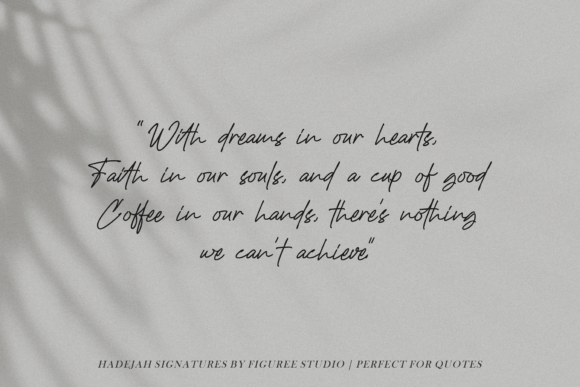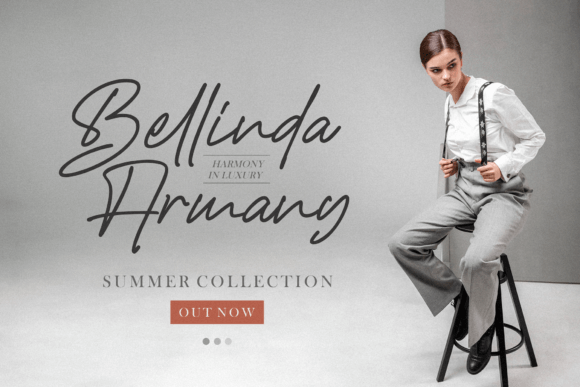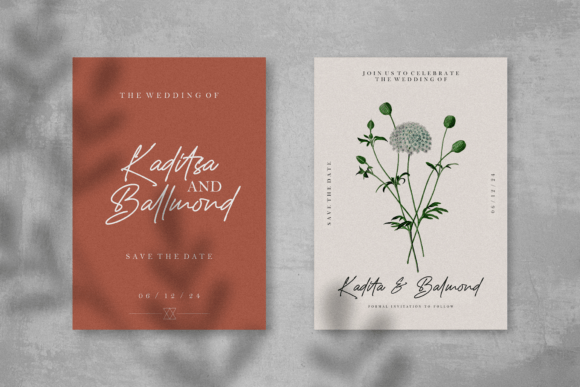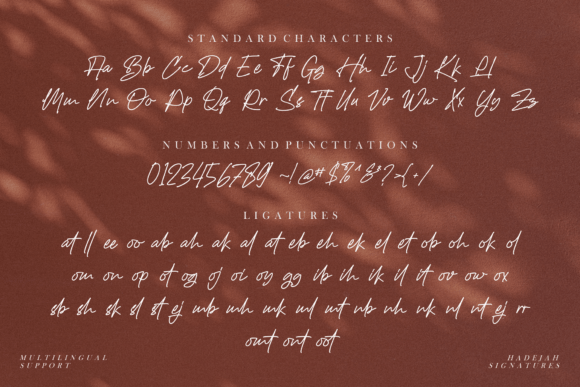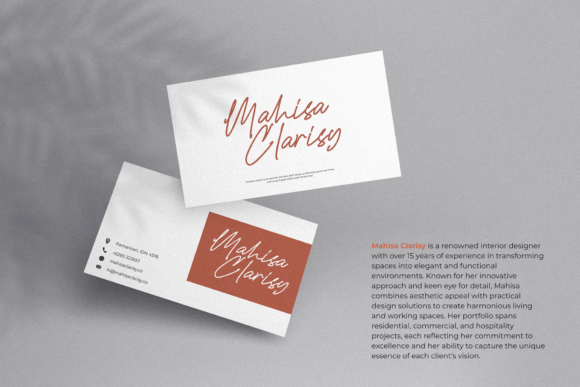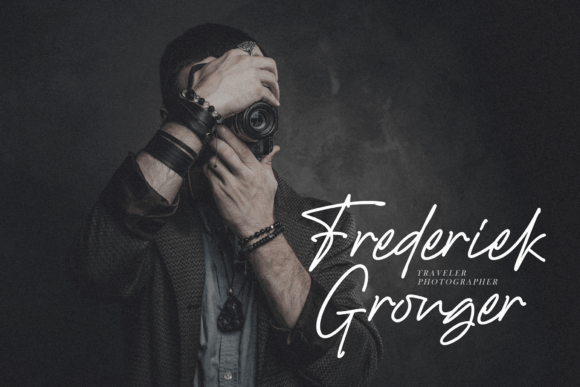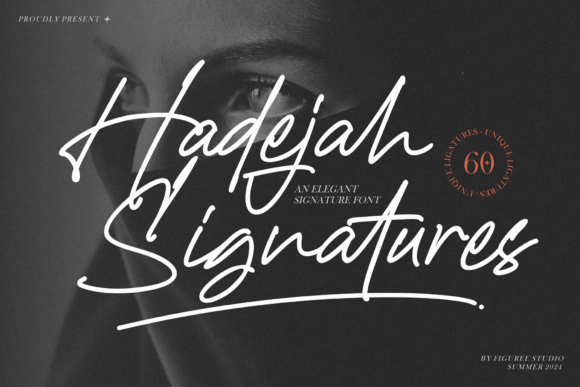
Introducing Hadejah: The Ultimate Elegant Signature Font for Your Creative Projects
Are you looking for a font that can add a touch of sophistication and refinement to your creative projects? Look no further than Hadejah, the elegant signature font that is perfect for designers and crafters who want to bring a sense of luxury and personal flair to their work. With its graceful strokes and exquisite design, Hadejah is the ideal choice for projects that demand a refined and luxurious touch.
Timeless Elegance: Capture the Beauty of Handwritten Signatures
Hadejah captures the beauty of handwritten signatures with its fluid, graceful lines. Each character is meticulously crafted to exude sophistication and elegance, making it perfect for projects such as wedding invitations, branding, logos, and more. Whether you’re a designer looking to create a luxurious brand identity or a crafter looking to add a personal touch to your handmade products, Hadejah is the perfect choice.
Sophisticated Style: A Seamless Blend of Elegance and Artistry
Hadejah combines delicate curves with stylish flourishes, creating a seamless blend of elegance and artistry. This font is perfect for designers and crafters who want to add a touch of sophistication and refinement to their work. With Hadejah, you can create beautiful and elegant designs that are sure to impress.
Hadejah is a versatile font that can be used for a variety of projects, including:
- Digital graphics and social media assets
Personal Touch: Add a Bespoke Feel to Your Designs
Hadejah’s exquisite letterforms convey a sense of personal touch and authenticity. Its elegant signature style adds a bespoke feel to your designs, making them unique and memorable. Whether you’re a designer looking to create a luxurious brand identity or a crafter looking to add a personal touch to your handmade products, Hadejah is the perfect choice.
Versatile Application: Use Hadejah in a Variety of Contexts
Hadejah is a versatile font that can be used in a variety of contexts, including:
- Print design: Use Hadejah for print designs such as brochures, flyers, and posters.
- Digital design: Use Hadejah for digital designs such as social media graphics, email templates, and website headers.
- Branding: Use Hadejah as a brand font to create a consistent and luxurious brand identity.
Why Choose Hadejah?
There are many reasons why you should choose Hadejah for your creative projects. Here are just a few:
- Elegant and sophisticated design
- Perfect for projects that demand a refined and luxurious touch
- Versatile and can be used in a variety of contexts
- Conveys a sense of personal touch and authenticity
- Unique and memorable
Get Ready to Elevate Your Designs with Hadejah
If you’re looking for a font that can add a touch of sophistication and refinement to your creative projects, look no further than Hadejah. With its elegant design and versatile application, Hadejah is the perfect choice for designers and crafters who want to bring a sense of luxury and personal flair to their work. So why wait? Get ready to elevate your designs with Hadejah, the ultimate elegant signature font.